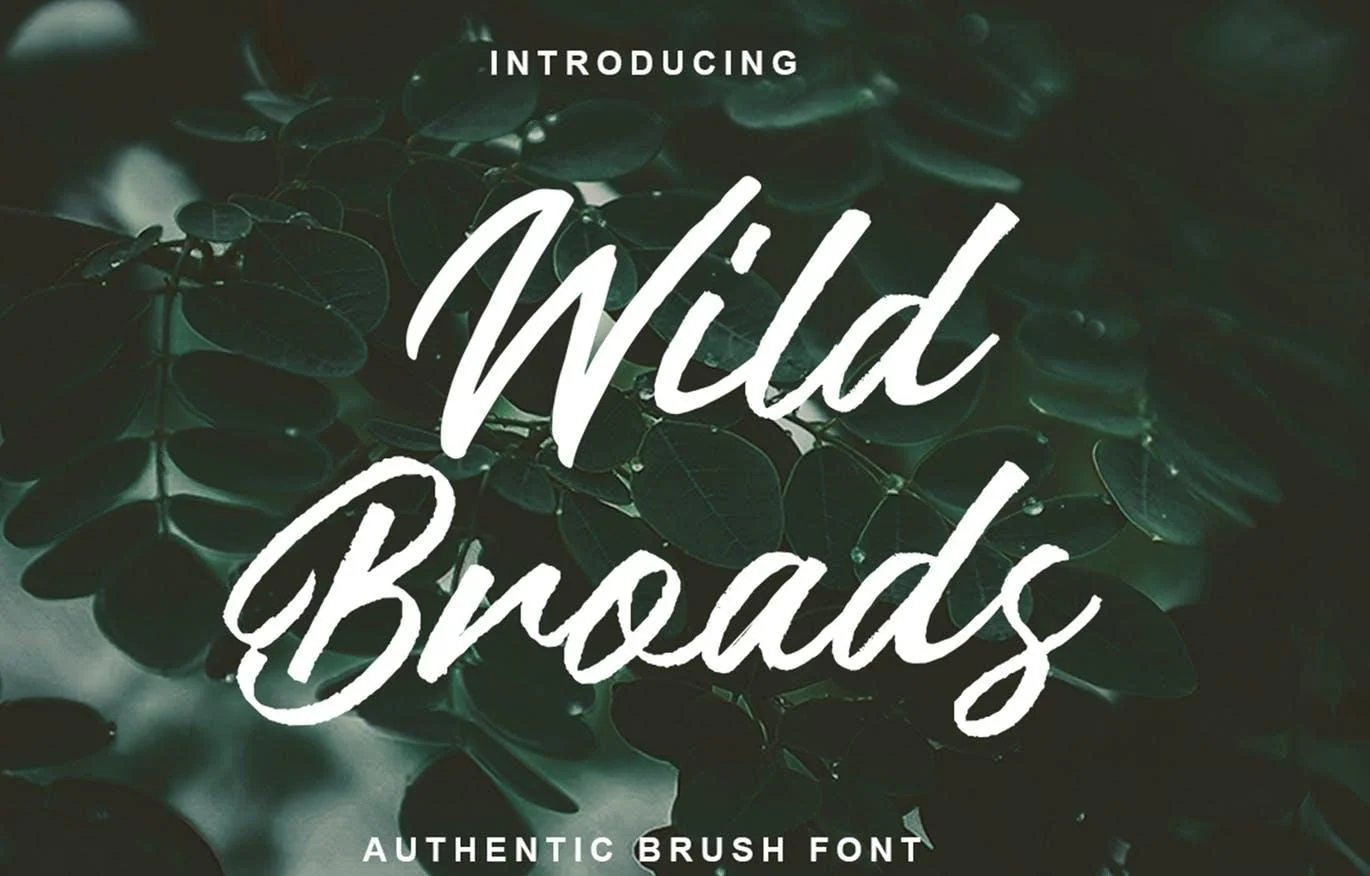
Wild Broads Font is perfect for bold fashion branding, empowering women's merchandise, feminist movement graphics, confidence coaching materials, fierce lifestyle blogs, independent women's apparel, girl power social media content, rebellious advertising campaigns, strong personality brands, and fearless designs that celebrate female empowerment, independence, and unapologetic confidence.
This font is exciting because it channels raw feminine power and bold confidence through striking letterforms that refuse to be ignored or diminished. The fearless character design embodies strength, sass, and the unstoppable spirit of women who break boundaries and live life on their own terms, making it perfect for projects that celebrate female empowerment and challenge traditional expectations with attitude and pride.
The Wild Broads Font family typically includes uppercase and lowercase characters, numerals, punctuation marks, expressive symbols, stylistic alternates, and bold glyphs that enable designers to create powerful compositions with fierce feminine energy and rebellious charm.
Whether you're designing for women-owned businesses, creating empowering content that inspires female audiences, or developing brand identities for ventures celebrating strong independent women, Wild Broads Font Free Download delivers the perfect typographic voice for fearless femininity. Its bold character and confident styling make every project feel more empowering and memorable, ensuring your designs effectively communicate strength, independence, and the magnificent power of women who embrace their authentic selves unapologetically.